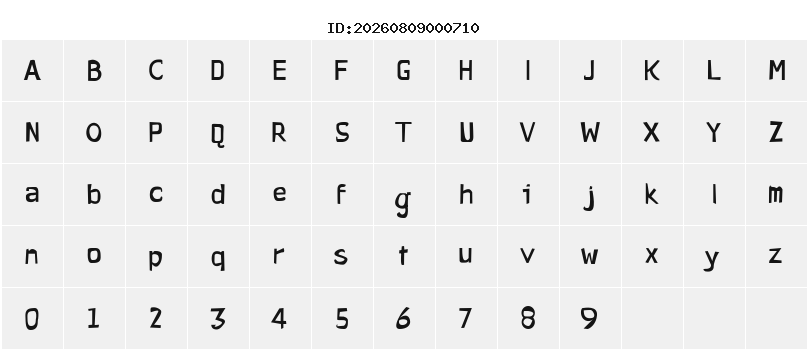
• Font Name: Pirates Writers
• Designer: Álvaro Thomáz
Pirates Writers.ttf is a modern, elegant sans-serif font designed for ultimate readability and visual harmony. Perfect for branding, headlines, web design, and print materials.